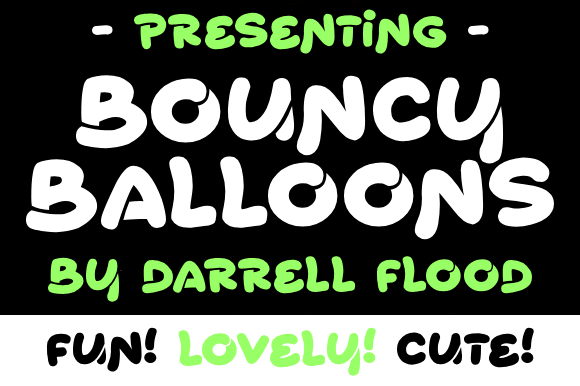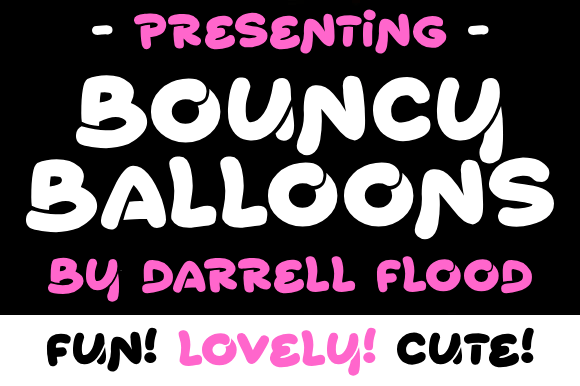
The Joy of Bouncy Balloons Font: A Playful Addition to Your Design Toolkit
I’ll never forget the time I was working on a birthday party invitation for a client’s kid. The theme was bright, colorful, and fun, but I was struggling to find the perfect font to match. That’s when I stumbled upon Bouncy Balloons Font, and it was love at first sight! 🎉 This playful, roundy font in a balloon-like style instantly captured the lighthearted and festive vibe I was going for. In this article, I’ll share my experience with Bouncy Balloons Font, its features, and how to make the most of it in your designs.
An Honest Review of Bouncy Balloons Font
- ✨ Playful and fun: Bouncy Balloons Font is perfect for kids’ events, birthday parties, and any lighthearted project.
- ✅ Easy to read: Despite its playful nature, the font is surprisingly easy to read, even in smaller sizes.
- 🎉 Versatile: Bouncy Balloons Font comes with a range of OpenType features, glyphs, and stylistic alternates, making it suitable for various design applications.
While Bouncy Balloons Font is an excellent addition to any design toolkit, it’s not without its quirks. For instance:
- 🤔 Limited use cases: Due to its playful nature, Bouncy Balloons Font might not be the best choice for more formal or professional projects.
- ⚠️ Kerning issues: As with any font, kerning can be a bit tricky, especially when using all-caps or mixing with other fonts.
The Designer Inspiration Behind Bouncy Balloons Font
The story behind Bouncy Balloons Font is one of creativity and playfulness. Imagine a designer who loves childhood memories of playing with balloons and wants to bottle that joy in a font. With Bouncy Balloons Font, you get a taste of that carefree spirit, perfect for injecting fun into your designs.
Q: Does Bouncy Balloons Font come with a wide range of characters?
A: Yes, Bouncy Balloons Font includes a range of characters, glyphs, and OpenType features, ensuring you have plenty of creative options.